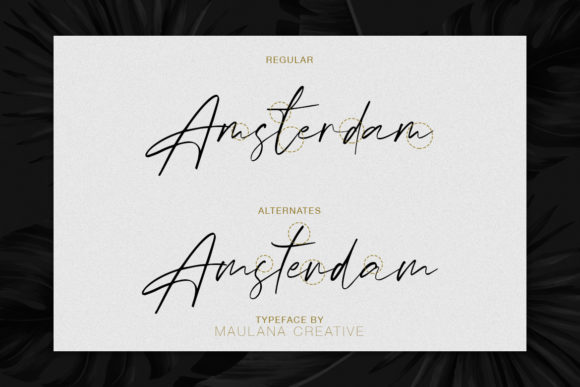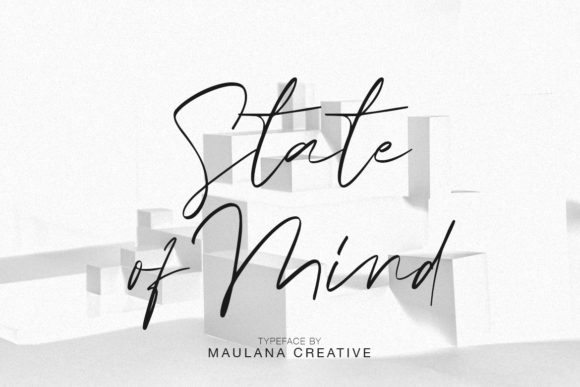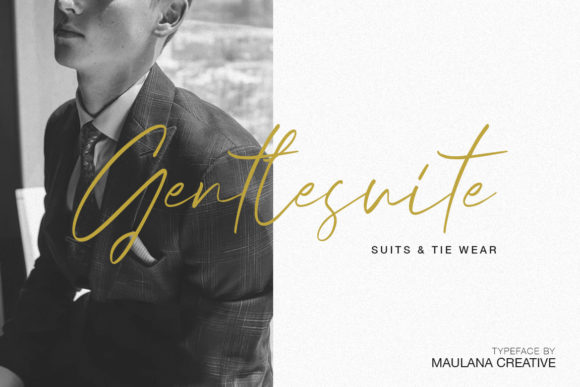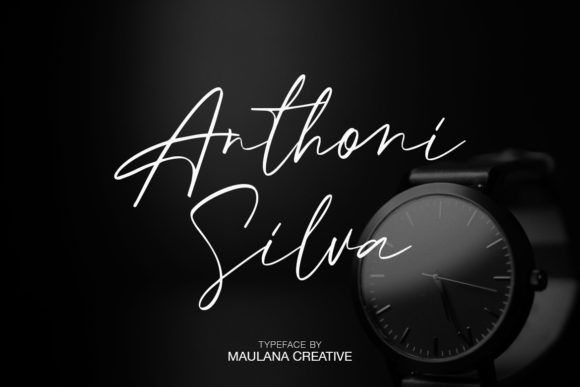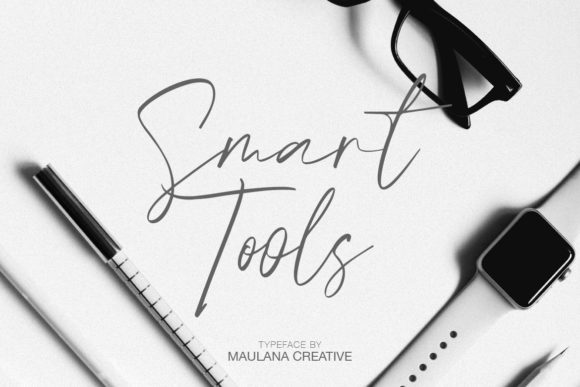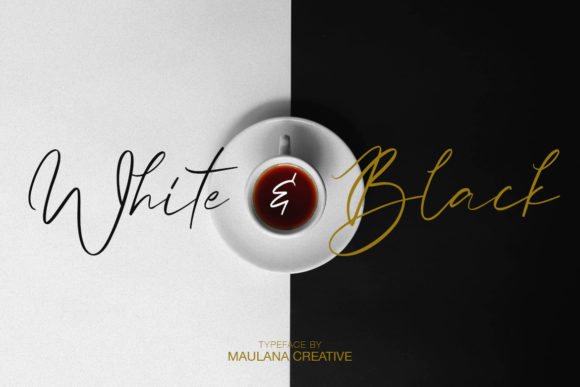
Introducing Goldies Signature Font: The Epitome of Elegance and Charm
Are you on the hunt for a font that exudes elegance, sophistication, and a dash of authentic charm? Look no further than Goldies Signature Font, a gorgeous and authentic script font that is sure to breathe life into your designs. In this article, we’ll dive into the world of Goldies, exploring its unique features, and what makes it a must-have for designers and crafters alike.
The Story Behind Goldies
Goldies is more than just a font – it’s a reflection of warmth, personality, and style. Its authentic charm is reminiscent of traditional script fonts, yet it boasts a modern twist that sets it apart from the rest. Whether you’re working on a branding project, crafting a beautiful wedding invitation, or simply looking to add some flair to your digital content, Goldies is the perfect companion.
What Makes Goldies So Special?
So, what makes Goldies Signature Font stand out from the crowd? Here are just a few of its standout features:
- Authentic Script Style: Goldies boasts a genuine script style that’s perfect for adding a touch of elegance to your designs.
- Unique Character Set: With a comprehensive character set, including uppercase and lowercase letters, numbers, and punctuation marks, Goldies has everything you need to create stunning text-based designs.
- Modern Twist: While Goldies is rooted in traditional script fonts, it has a distinctly modern feel that will keep your designs fresh and contemporary.
- Highly Versatile: Whether you’re working on a digital project or a print-based design, Goldies is the perfect choice.
How to Use Goldies in Your Designs
Goldies is incredibly easy to use, even for those who are new to font design. Here are a few tips to get you started:
- Pair it with Bold Fonts: Combine Goldies with bold, sans-serif fonts for a striking contrast that will make your designs pop.
- Add Decorative Elements: Use Goldies as a base font, and add decorative elements, such as flourishes or swashes, to give your designs an extra touch of elegance.
- Experiment with Colors: Goldies looks stunning in a range of colors, from rich jewel tones to soft pastels. Don’t be afraid to experiment and find the perfect hue for your design.
Why Designers and Crafters Love Goldies
Goldies has quickly become a favorite among designers and crafters, and it’s easy to see why. Here are just a few reasons why:
- Time-Saving: With Goldies, you can create stunning text-based designs in a fraction of the time it would take to hand-letter or create a custom font.
- Consistency: Goldies ensures consistency across your designs, making it perfect for branding and marketing projects.
- Elegance: Let’s face it – Goldies is elegant, sophisticated, and sure to impress your clients or audience.
In conclusion, Goldies Signature Font is a gorgeous and authentic script font that’s sure to inspire your designs. With its unique blend of traditional and modern elements, Goldies is the perfect choice for designers and crafters looking to add a touch of elegance and charm to their work. So why wait? Get inspired by Goldies today, and take your designs to the next level!